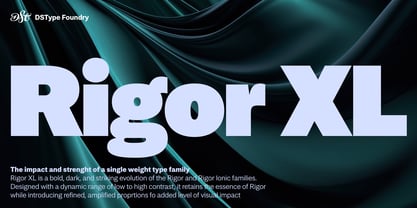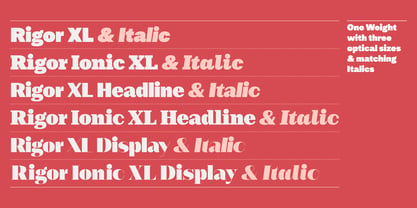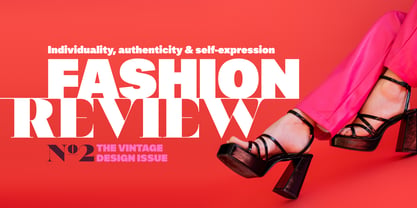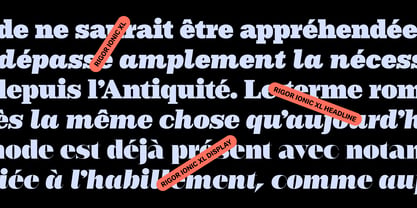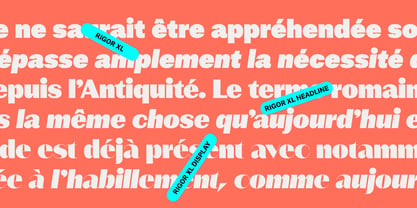
Rigor XL
von DSType
Die Schriftfamilie Rigor XL wurde von Dino dos Santos, Pedro Leal entworfen und von DSType veröffentlicht. Rigor XL enthält 12 Stile und Familienpaketoptionen. Mehr über diese Familie
Rigor XL is a bold, dark, and striking evolution of the Rigor and Rigor Ionic families. Designed with a dynamic range of low to high contrast, it preserves the core character and structural integrity of Rigor while pushing its visual language further. Refined details and amplified proportions give the typeface a more commanding presence, enhancing its expressiveness and readability at larger scales. The result is a powerful display style that delivers clarity, intensity, and a heightened level of visual impact.
Designer: Dino dos Santos, Pedro Leal
Foundry: DSType